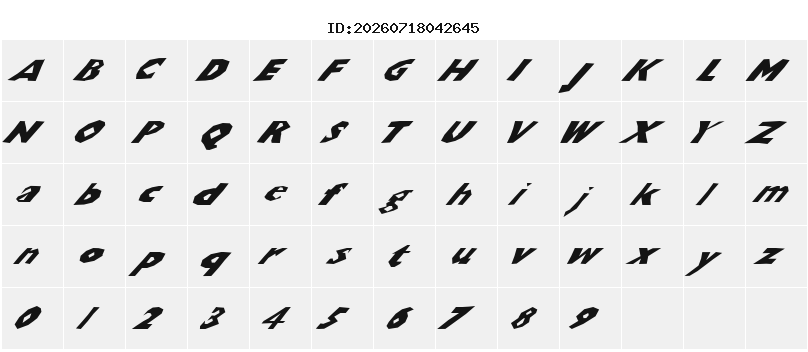
ChunkoBlockoSlantedWild Preview
• Font Name: ChunkoBlockoSlantedWild
• Font ID: ChunkoBlockoSlantedWild
• Full Font Name: ChunkoBlockoSlantedWild
• Version: 1.0 of this chunky font
• PostScript Name: ChunkoBlockoSlantedWild
About ChunkoBlockoSlantedWild.ttf
ChunkoBlockoSlantedWild.ttf is a modern, elegant sans-serif font designed for ultimate readability and visual harmony. Perfect for branding, headlines, web design, and print materials.